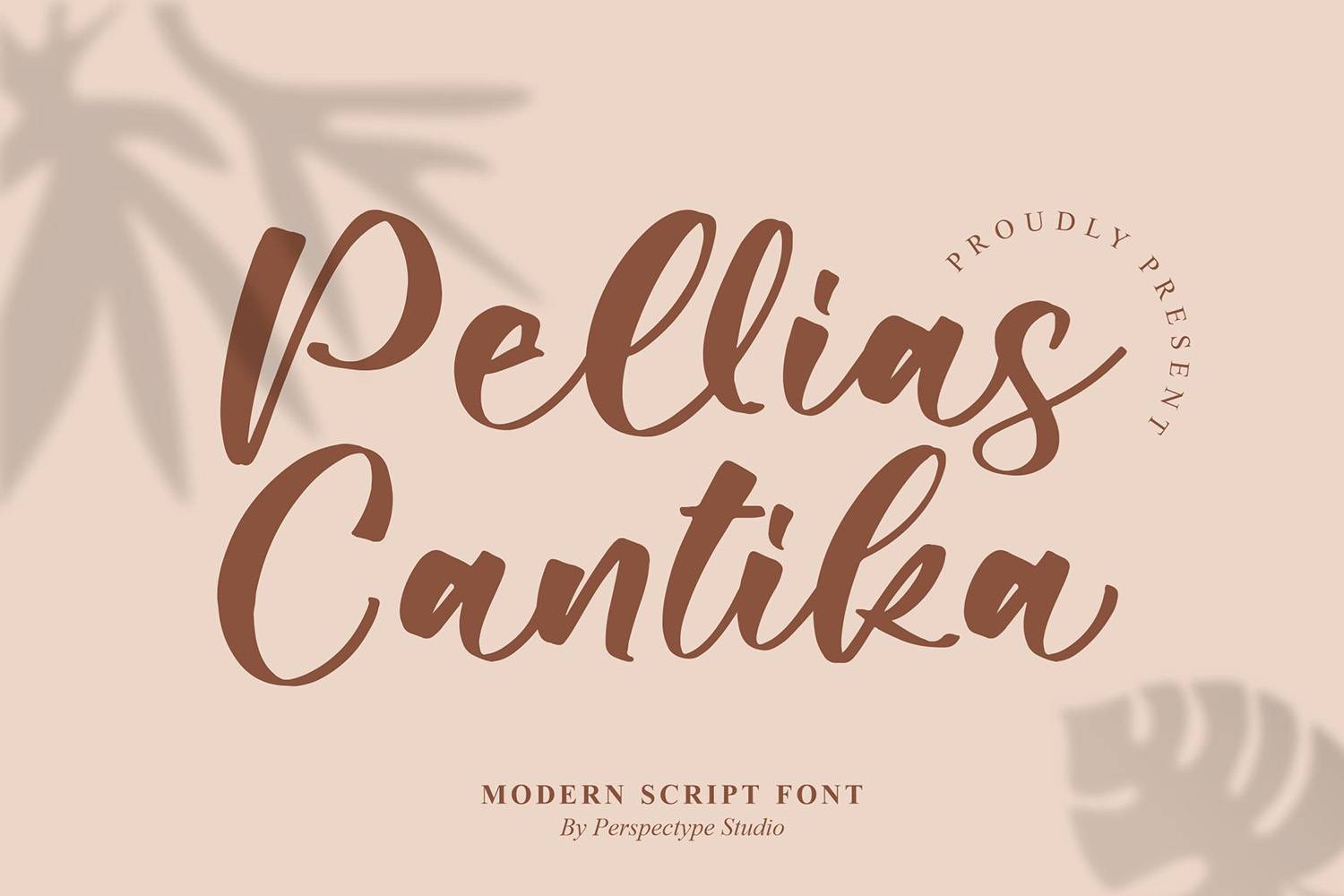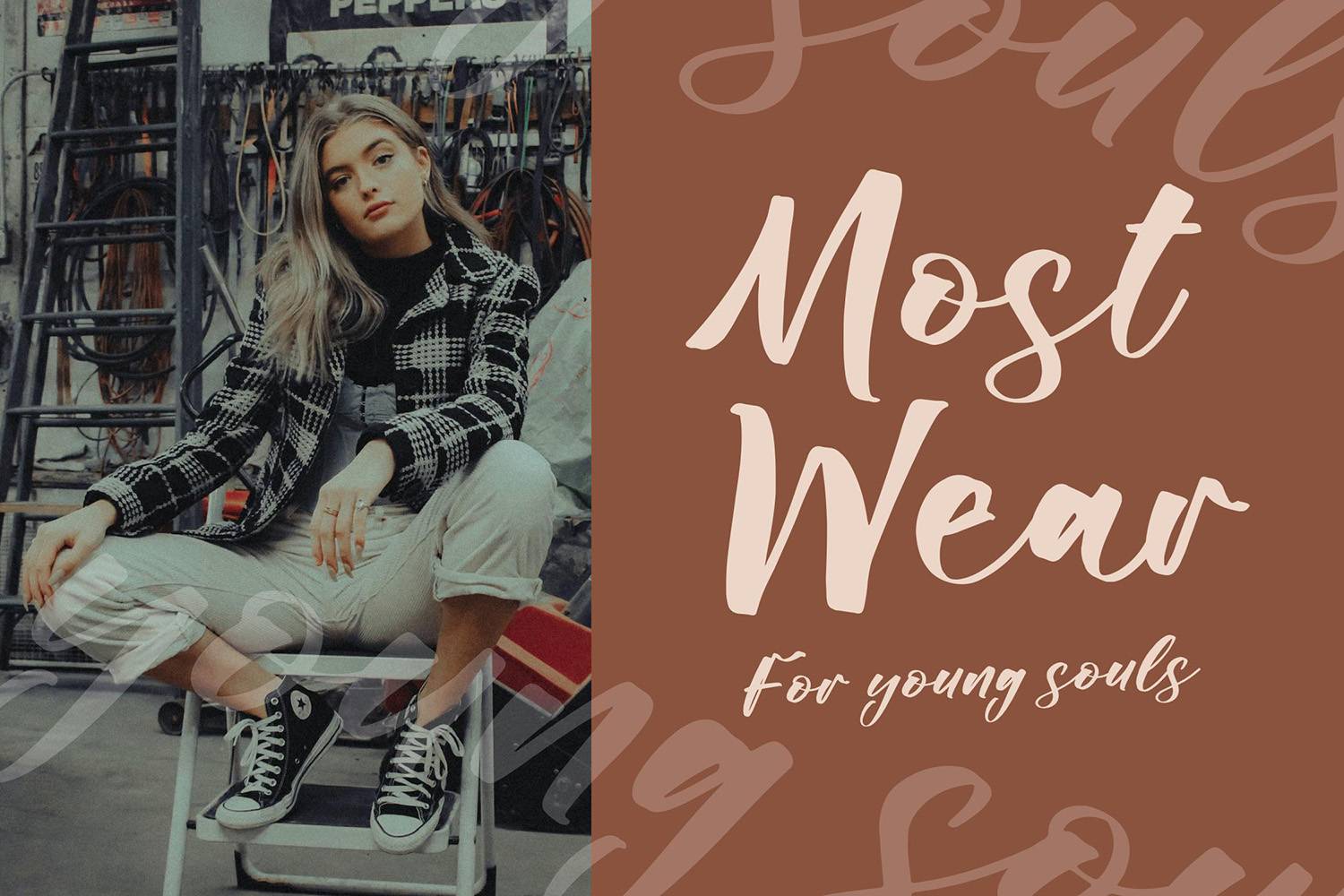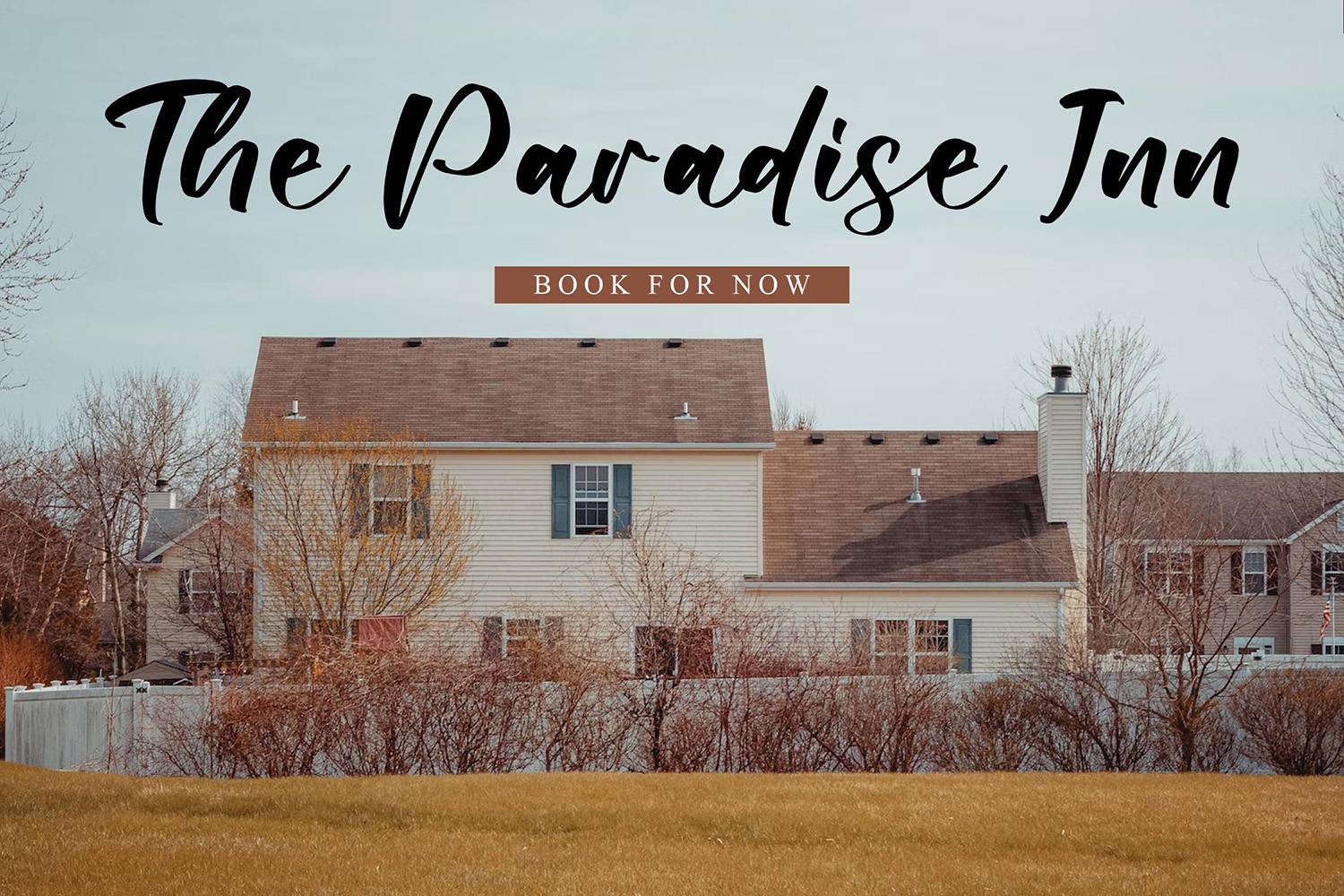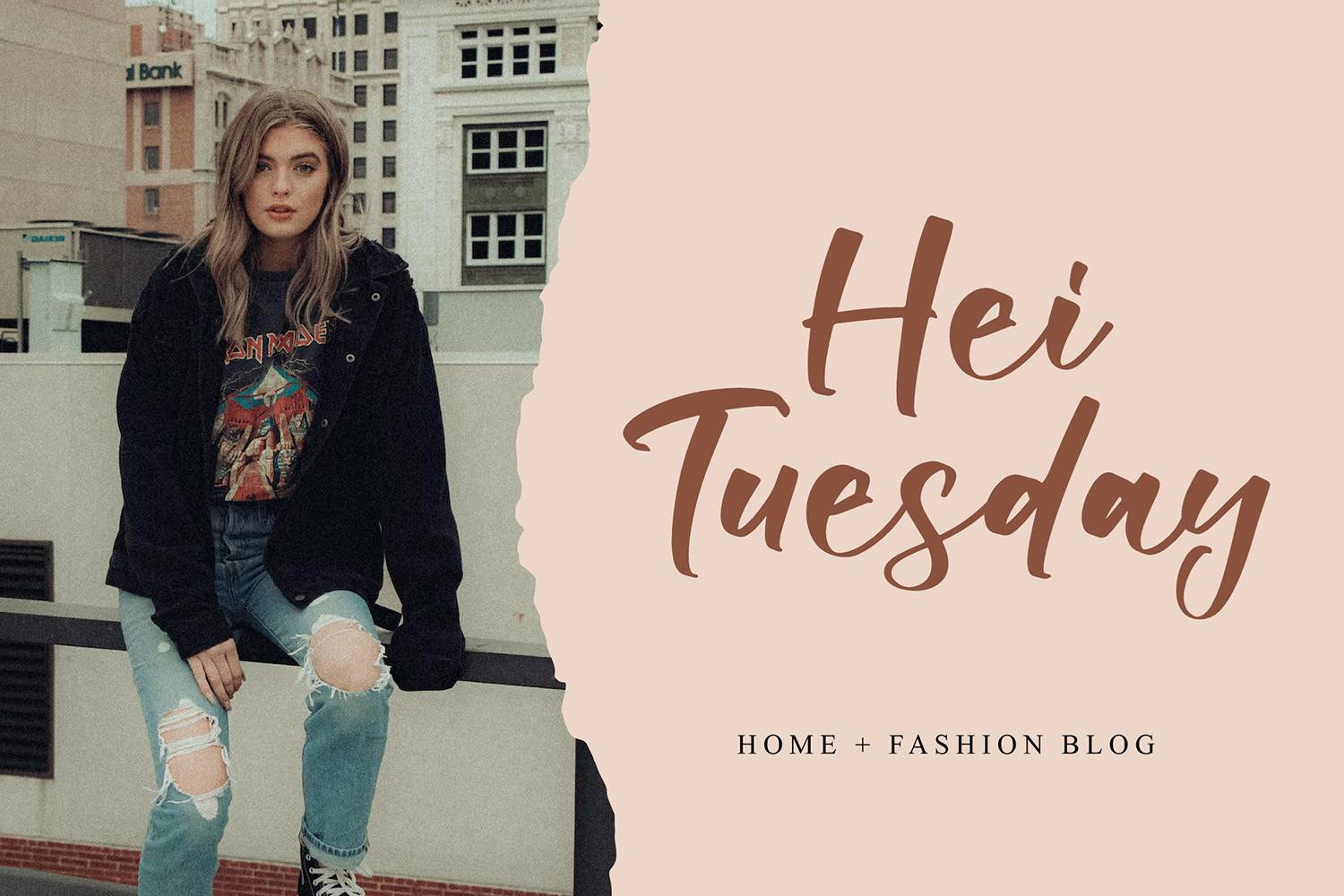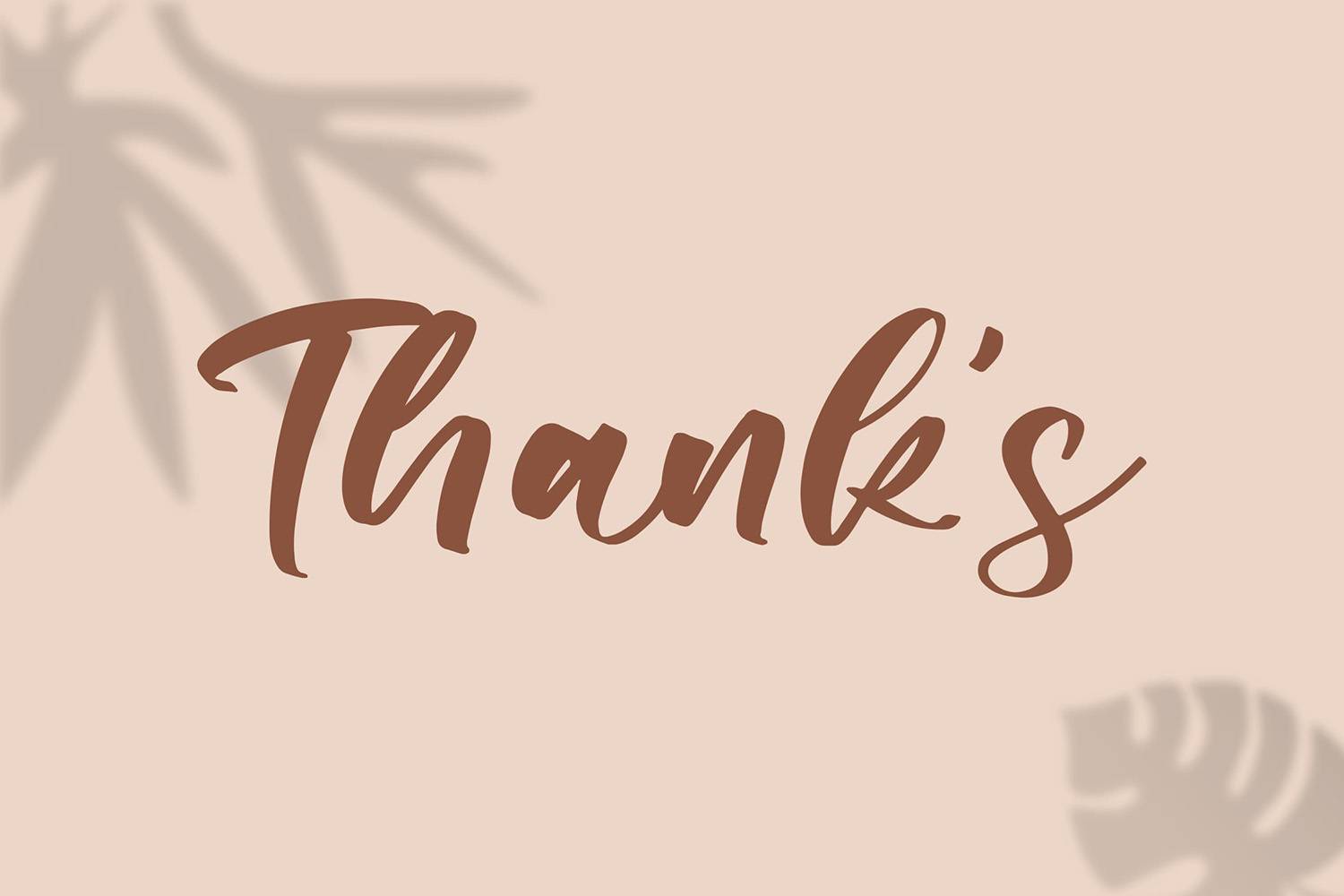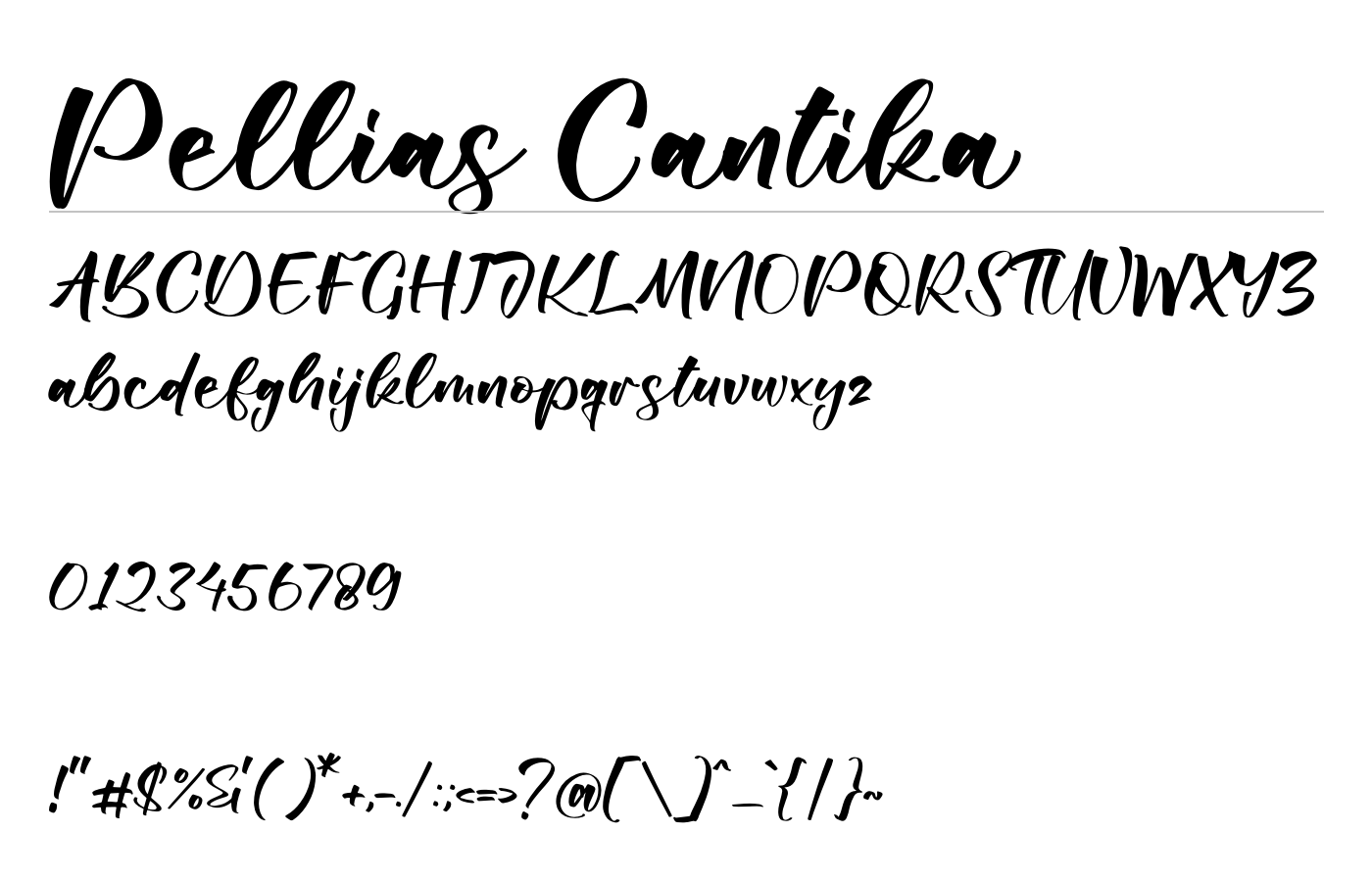
Pellias Cantika is a lively and elegant script font with a bold, brush-like style that combines smooth curves and dynamic strokes for a hand-painted feel. Its moderate contrast and slightly irregular shapes give it a charming, personal touch, making it perfect for creative branding, invitations, and eye-catching headlines where a warm, artistic vibe is desired. This font works well in designs that aim to convey friendliness and creativity with a touch of sophistication.
Pellias Cantika Font
About Pellias Cantika Font